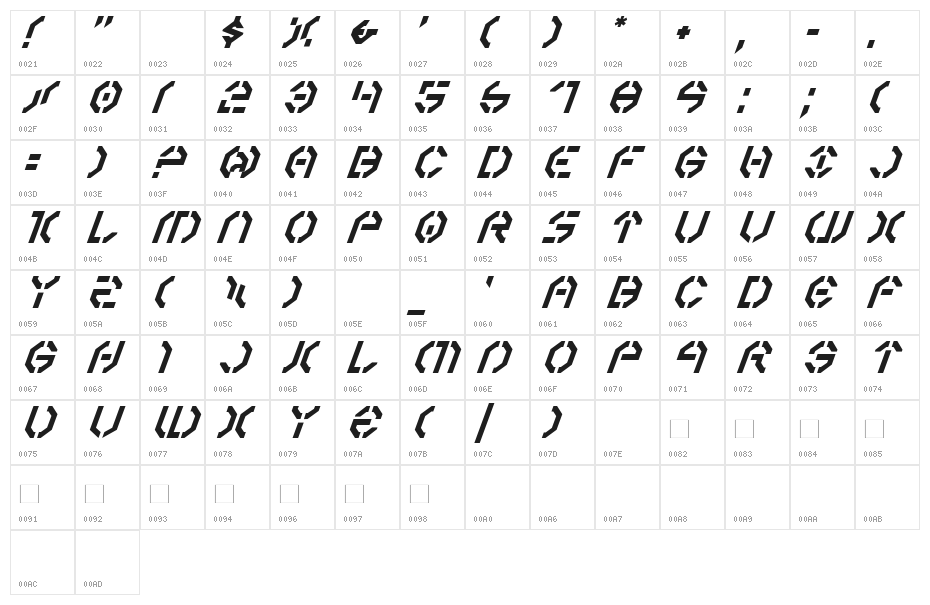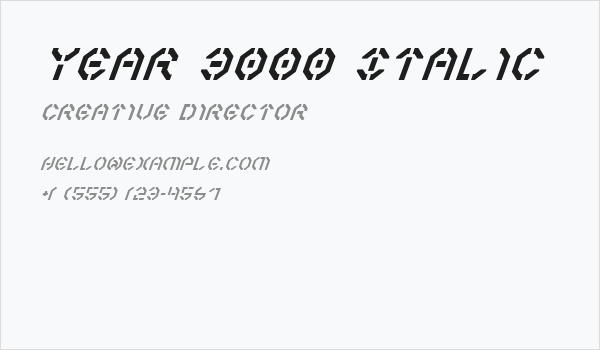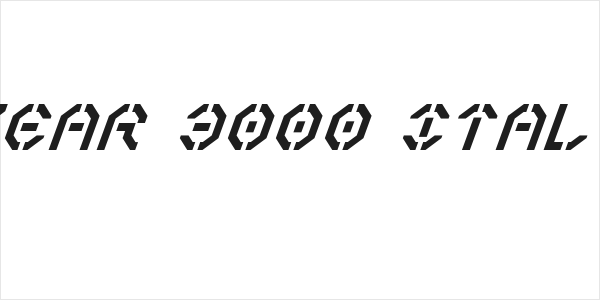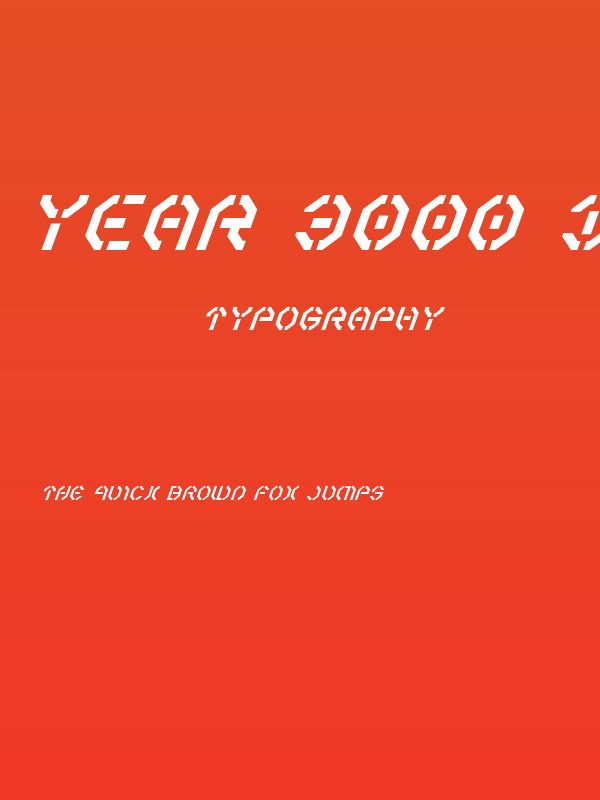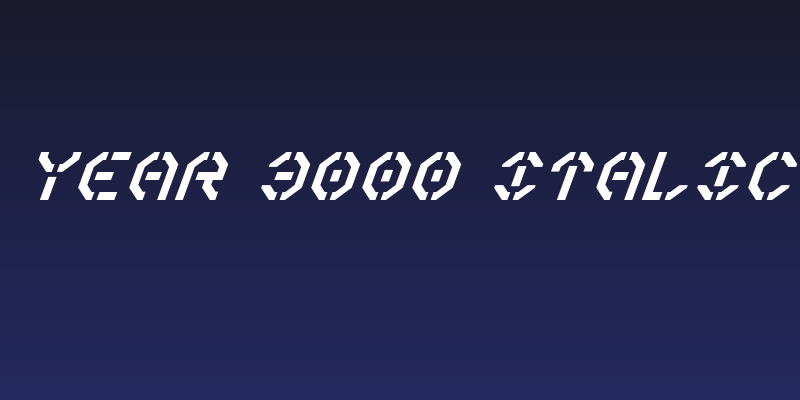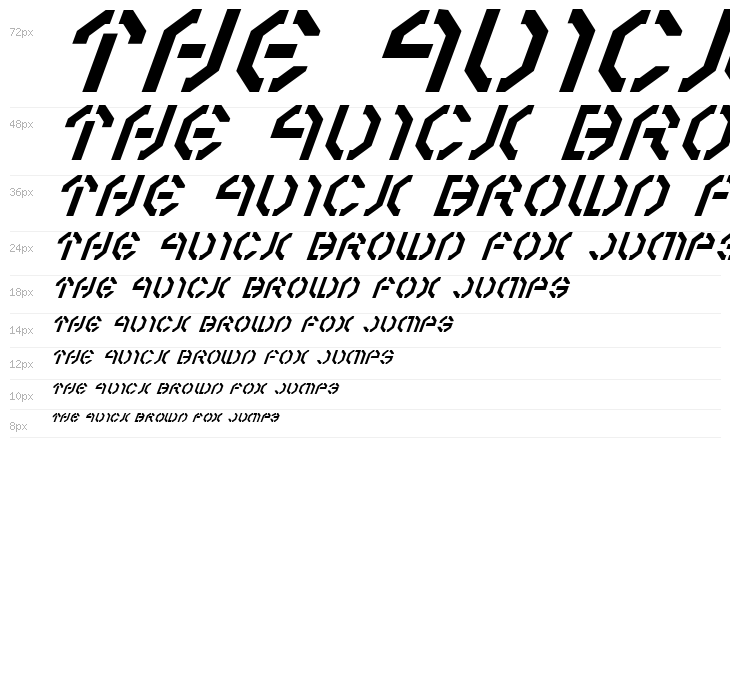
Year 3000 Italic Font
Year 3000 Italic Description
This font features a futuristic and angular design, characterized by sharp edges and a bold, italicized style. The letters are constructed with geometric precision, giving them a mechanical and modern appearance. The uppercase and lowercase letters maintain a consistent angular theme, while the numbers and special characters follow suit with the same edgy design. The overall look is dynamic and forward-thinking, suitable for projects that aim to convey innovation and a cutting-edge aesthetic.
| Proposed Projects | Ideal for sci-fi themed projects, technology branding, video game titles, and futuristic posters. |